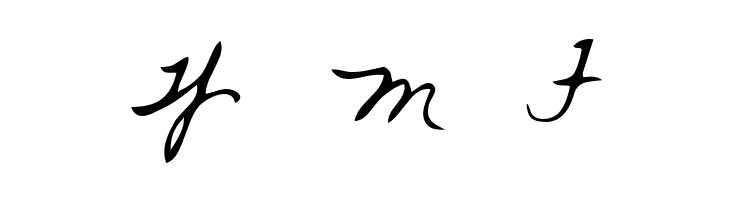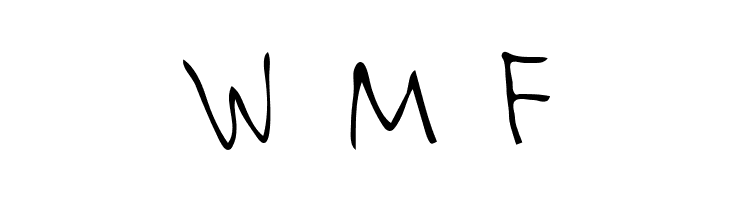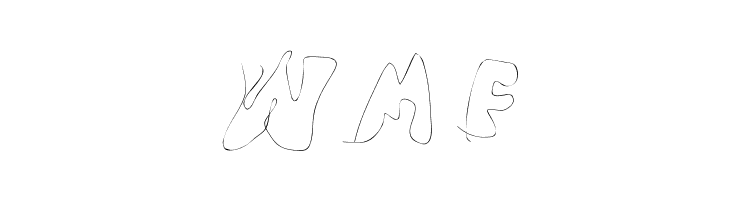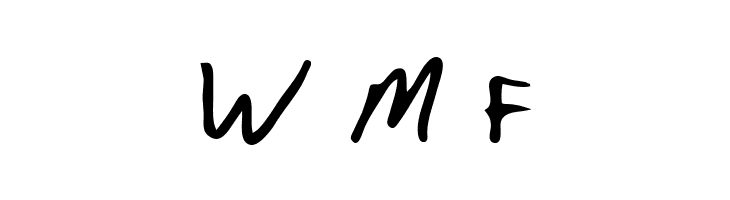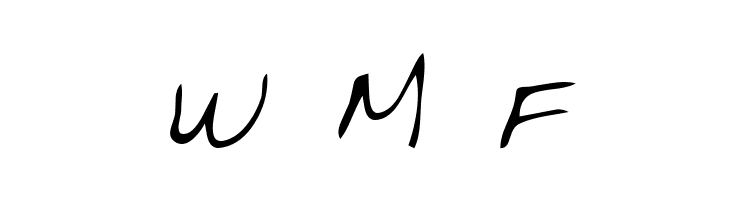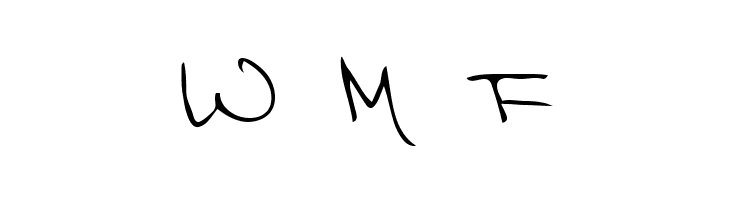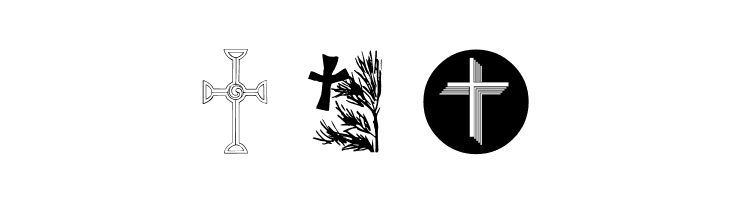
A playful, handwritten font with irregular strokes and a casual style.
A bold, pixelated font with a retro, digital aesthetic.
A bold, handwritten font with dynamic, brush-like strokes.
A flowing, elegant script font with a handwritten style.
A bold, handwritten font with a playful and artistic style.
A playful, bubbly font with outlined, rounded characters.
A lively, flowing script font with elegant cursive letterforms.
A whimsical and decorative font with playful curls and swirls.
A lively and expressive handwritten font with fluid, dynamic strokes.
An elegant script font with whimsical flourishes and decorative elements.
A playful and elegant script font with a handwritten style.
A playful, handwritten font with smooth curves and a whimsical style.
A modern, geometric sans-serif font with a clean and balanced design.
A modern, semi-bold italic font with a sleek and dynamic style.
A modern, italic font with a sleek and dynamic design.
A modern, geometric typeface with uniform strokes and a clean, professional appearance.
A monospaced typewriter-style font with a vintage, textured appearance.
A tall, narrow, and modern font with sharp edges and geometric shapes.
A playful, handwritten font with bold, artistic characters and decorative flourishes.
A bold, cursive font with an energetic and flowing style.
A lively script font with elegant, flowing letterforms and artistic flair.
A bold, expressive handwritten font with brush-like strokes.
A futuristic, italic font with sharp angles and a dynamic, modern design.
A futuristic, angular font with a modern and dynamic style.
A playful, textured font with a chalkboard-inspired, hand-drawn style.
A bold, geometric font with a futuristic and digital style.
A playful, chalk-inspired font with a textured, hand-drawn look.
A high-contrast, modern serif font with elegant curves and artistic flair.
A decorative and elegant font with high contrast and unique flourishes.
A graceful, flowing script font with elegant, connected strokes.
A modern, geometric font with rounded edges and a futuristic style.
A modern, geometric font with clean lines and a uniform appearance.
A lively, bold script font with interconnected, flowing letters.
A bold, distressed stencil-style font with a rugged texture.